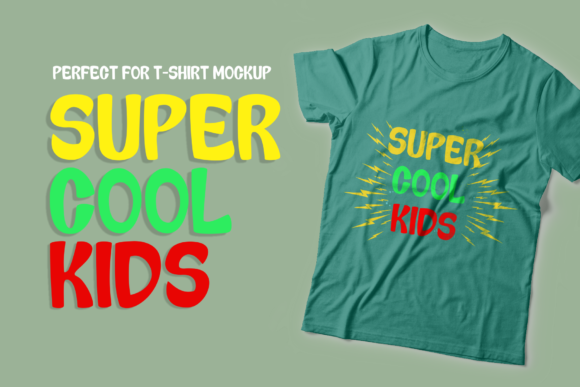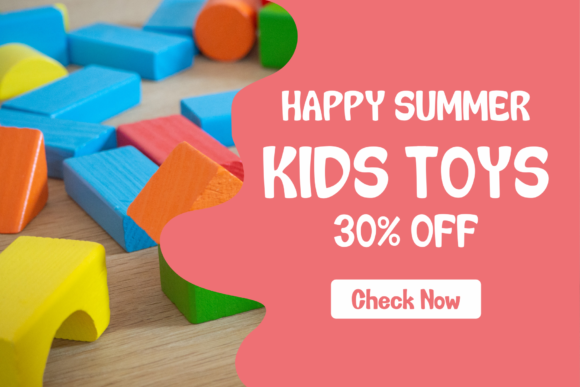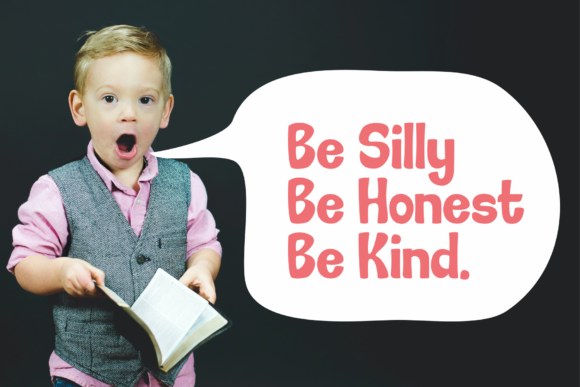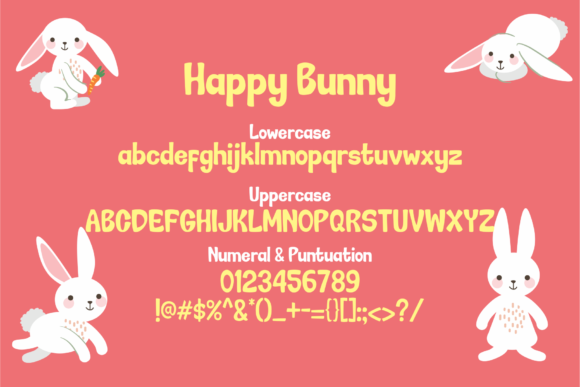
Introducing Happy Bunny Font: The Ultimate Choice for Playful Designs
Are you looking for a font that can add a touch of playfulness and authenticity to your designs? Look no further than Happy Bunny Font! This adorable display font is perfect for children’s activities, school projects, and any design that requires a fun and lively touch. In this article, we’ll explore the features and benefits of Happy Bunny Font and why it’s a must-have for designers and crafters.
What is Happy Bunny Font?
Happy Bunny Font is a cute and fun display font that embodies playfulness and authenticity. Its chunky lettered design makes it perfect for adding a personal touch to your designs. The font is designed to make your designs come alive, and it’s ideal for a variety of projects, including children’s books, school posters, and craft projects.
Key Features of Happy Bunny Font
- Playful Design: Happy Bunny Font has a playful and fun design that is sure to capture the attention of your audience.
- Chunky Lettering: The font features chunky lettering that adds a personal touch to your designs.
- Authentic Feel: The font has an authentic feel that makes it perfect for children’s activities and school projects.
- Easy to Read: Despite its playful design, Happy Bunny Font is easy to read, making it perfect for large and small designs.
Benefits of Using Happy Bunny Font
There are several benefits to using Happy Bunny Font in your designs. Here are a few:
- Adds a Personal Touch: Happy Bunny Font adds a personal touch to your designs, making them more engaging and fun.
- Perfect for Children’s Designs: The font is perfect for children’s designs, including children’s books, activity sheets, and school posters.
- Versatile: The font is versatile and can be used for a variety of projects, including craft projects, party invitations, and more.
Tips for Using Happy Bunny Font
Here are a few tips for using Happy Bunny Font:
- Use it for Headings: Happy Bunny Font is perfect for headings and titles, so use it to add a playful touch to your designs.
- Experiment with Colors: Experiment with different colors to add a pop of color to your designs.
- Pair it with Other Fonts: Pair Happy Bunny Font with other fonts to create a unique and playful design.
In conclusion, Happy Bunny Font is a cute and fun display font that is perfect for adding a playful touch to your designs. Its chunky lettered design and authentic feel make it ideal for children’s activities and school projects. With its ease of use and versatility, Happy Bunny Font is a must-have for designers and crafters. So why wait? Download Happy Bunny Font today and start creating playful and engaging designs!